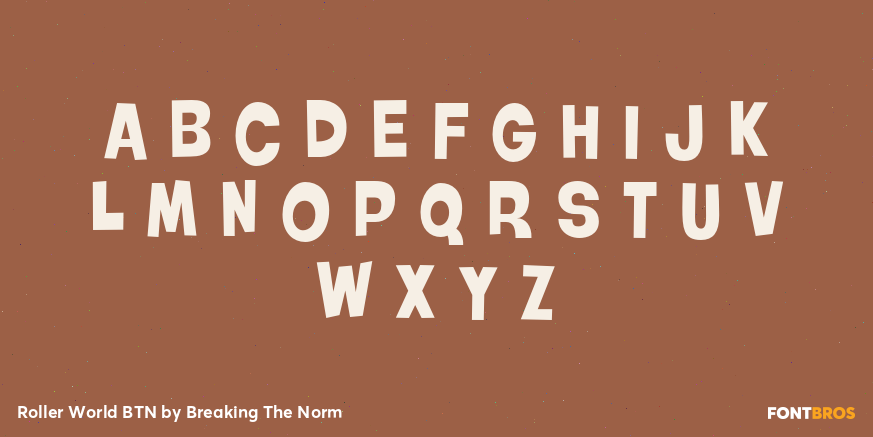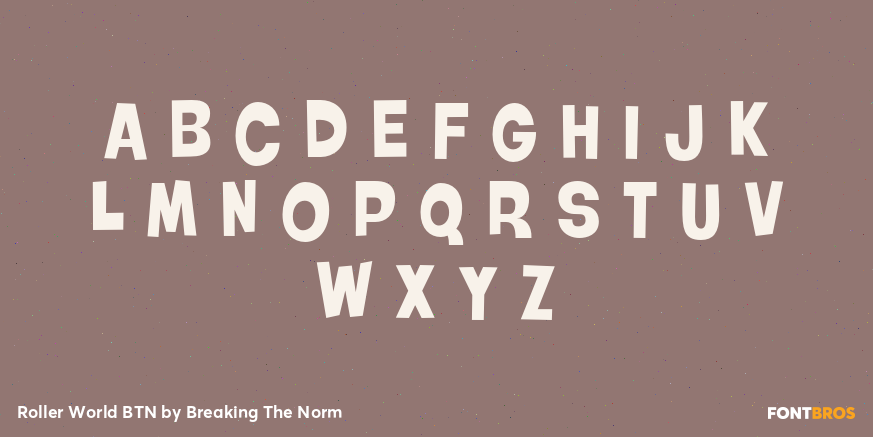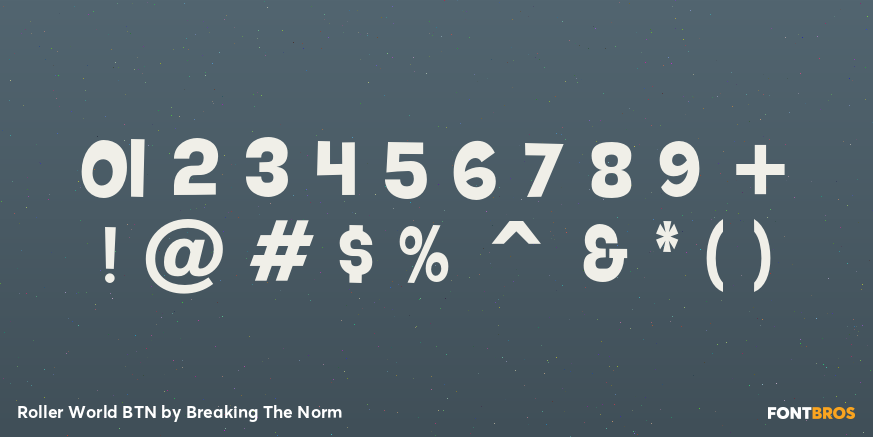
Roller World BTN
Font Family by Breaking The Norm
Roller World BTN is a playful retro display family inspired by the lively spirit of classic roller skating rinks. Its upbeat personality and bold, graphic styling give it a fun throwback feel that works especially well for posters, party graphics, signage, packaging, event materials, and playful branding. The family captures a sense of motion, music, and vintage recreation culture while staying strong and easy to read in display settings. With Regular, Bold, Bold Outline, Wide, and Wide Bold styles, Roller World BTN offers flexible options for creating energetic headlines with nostalgic flair.